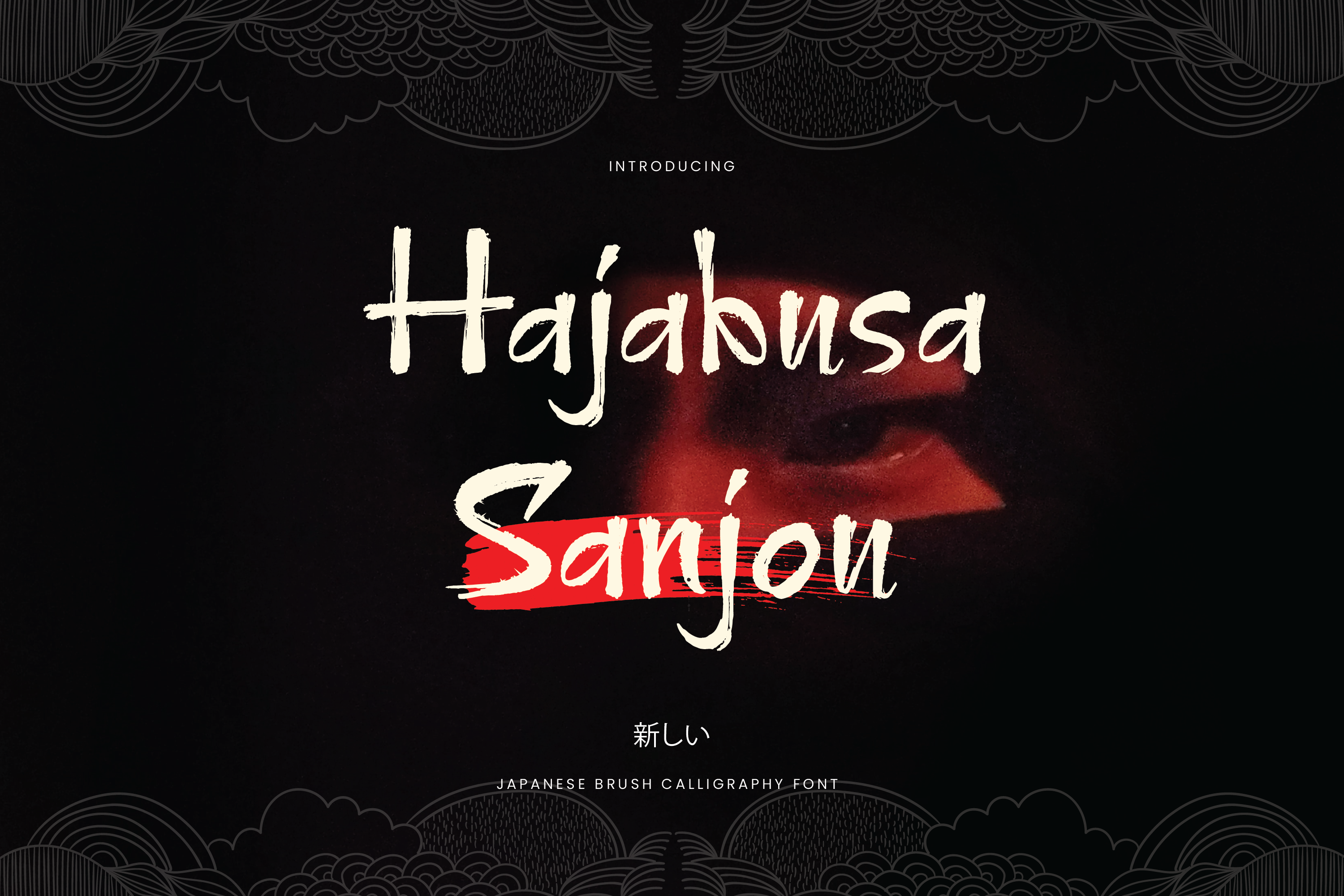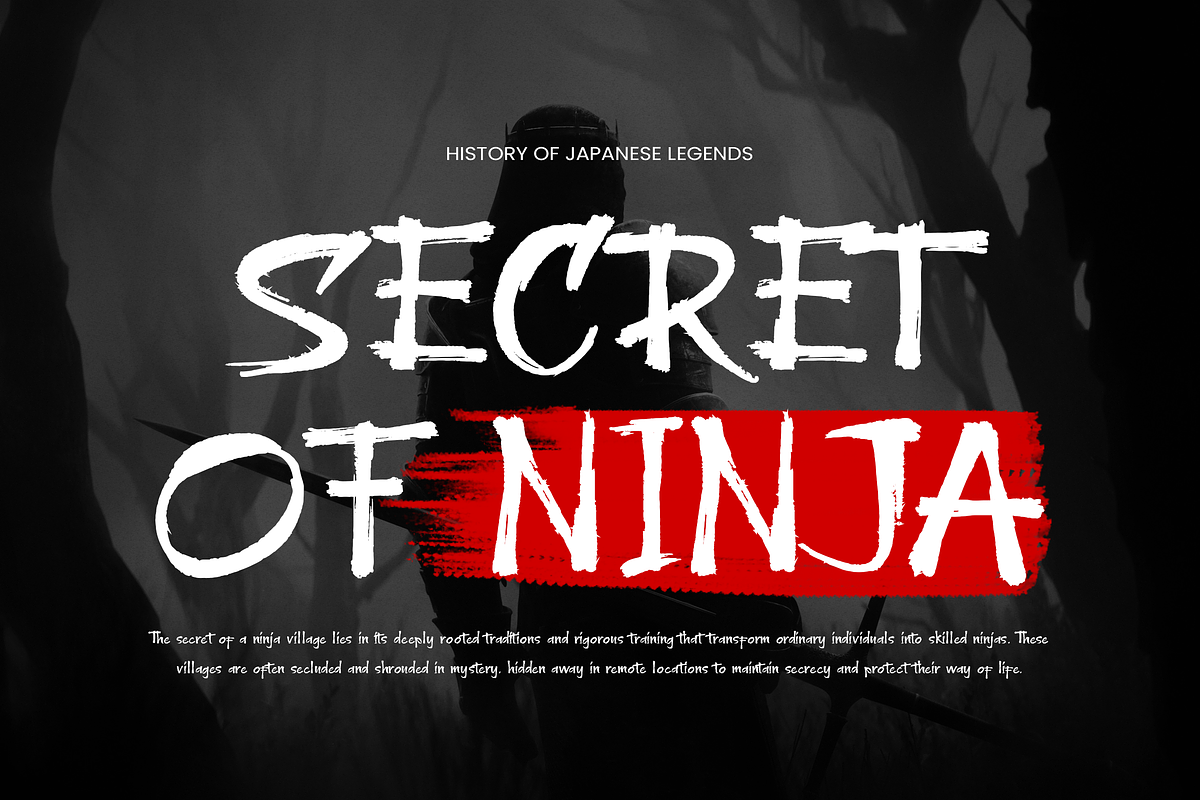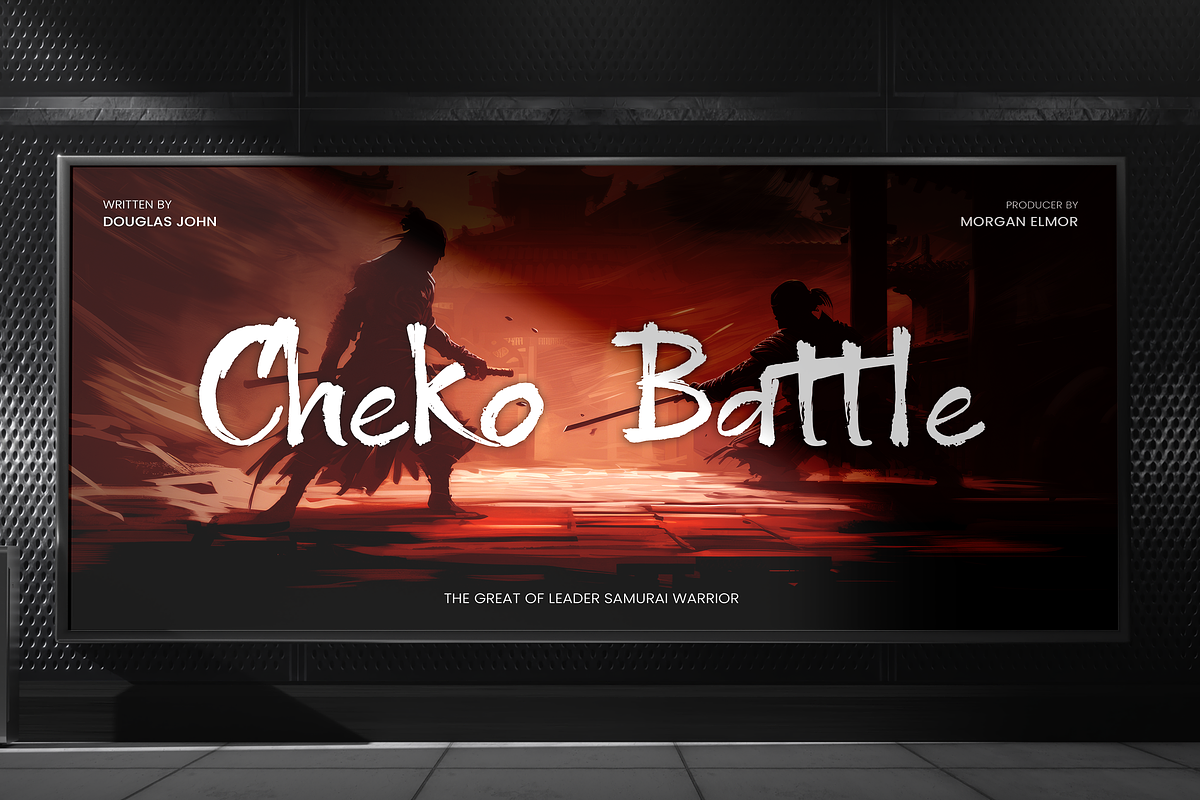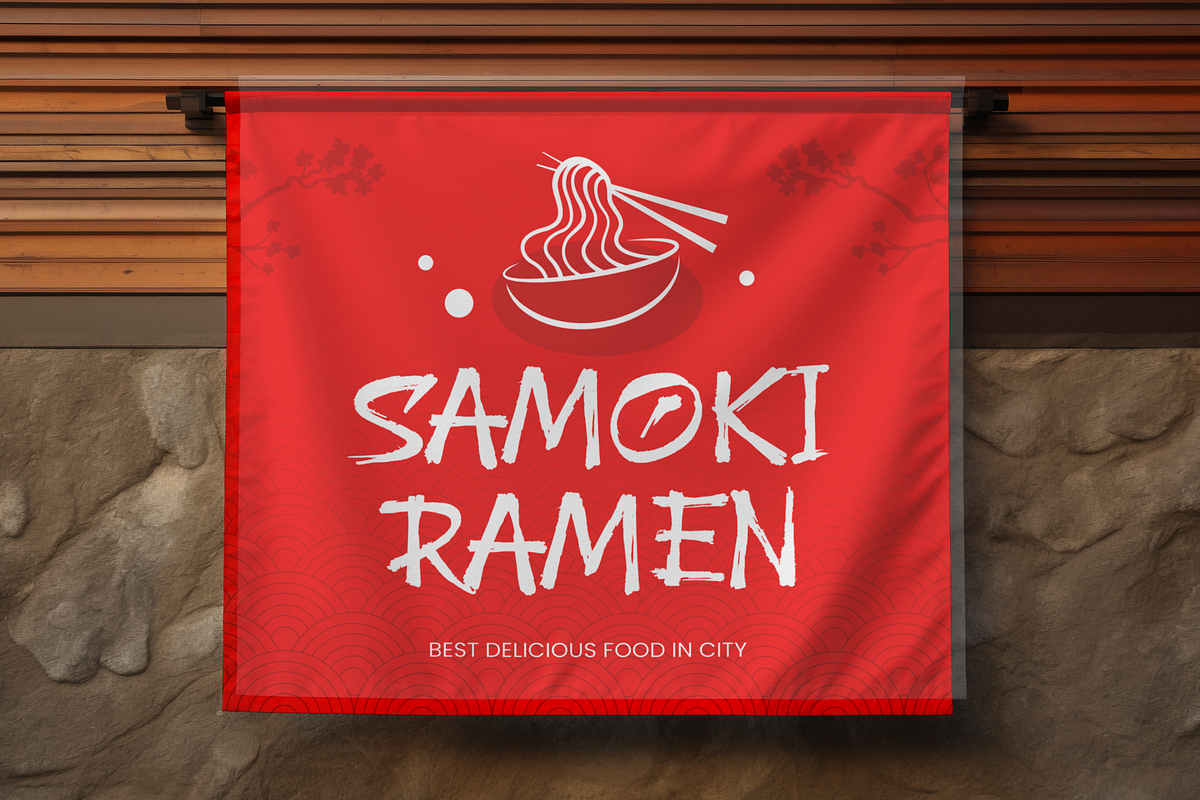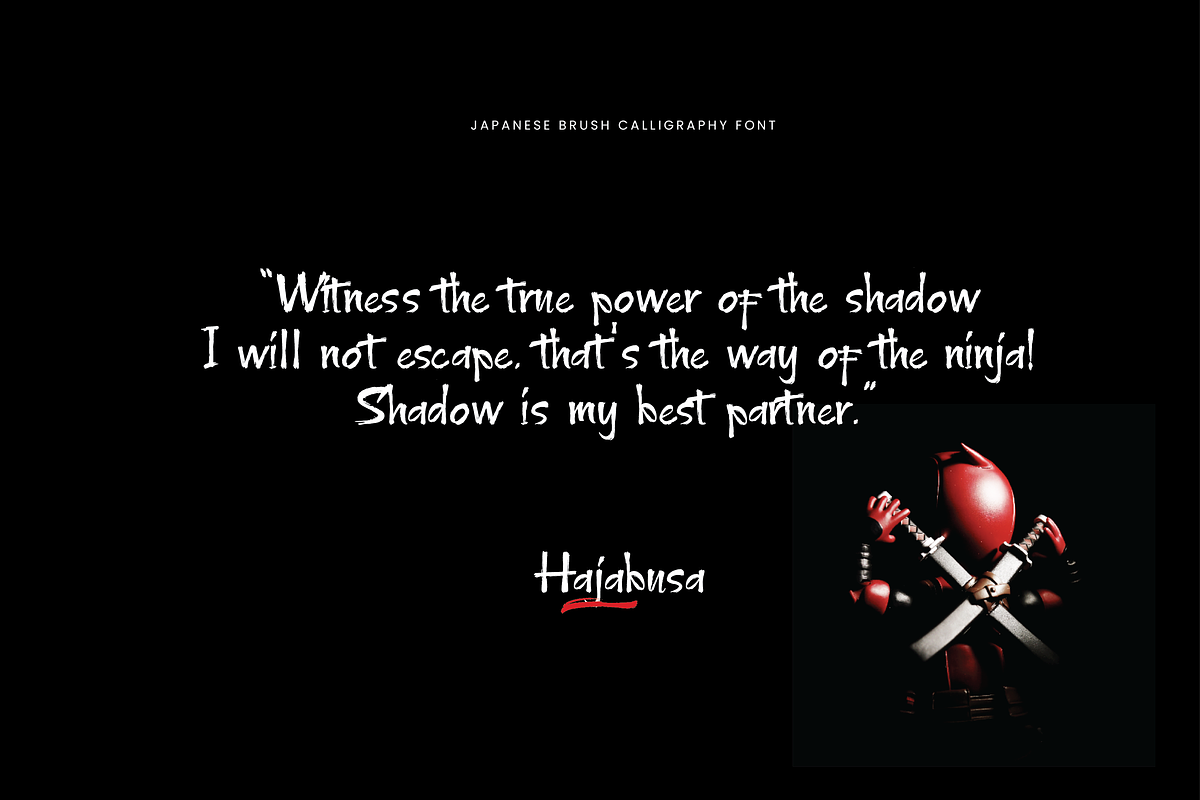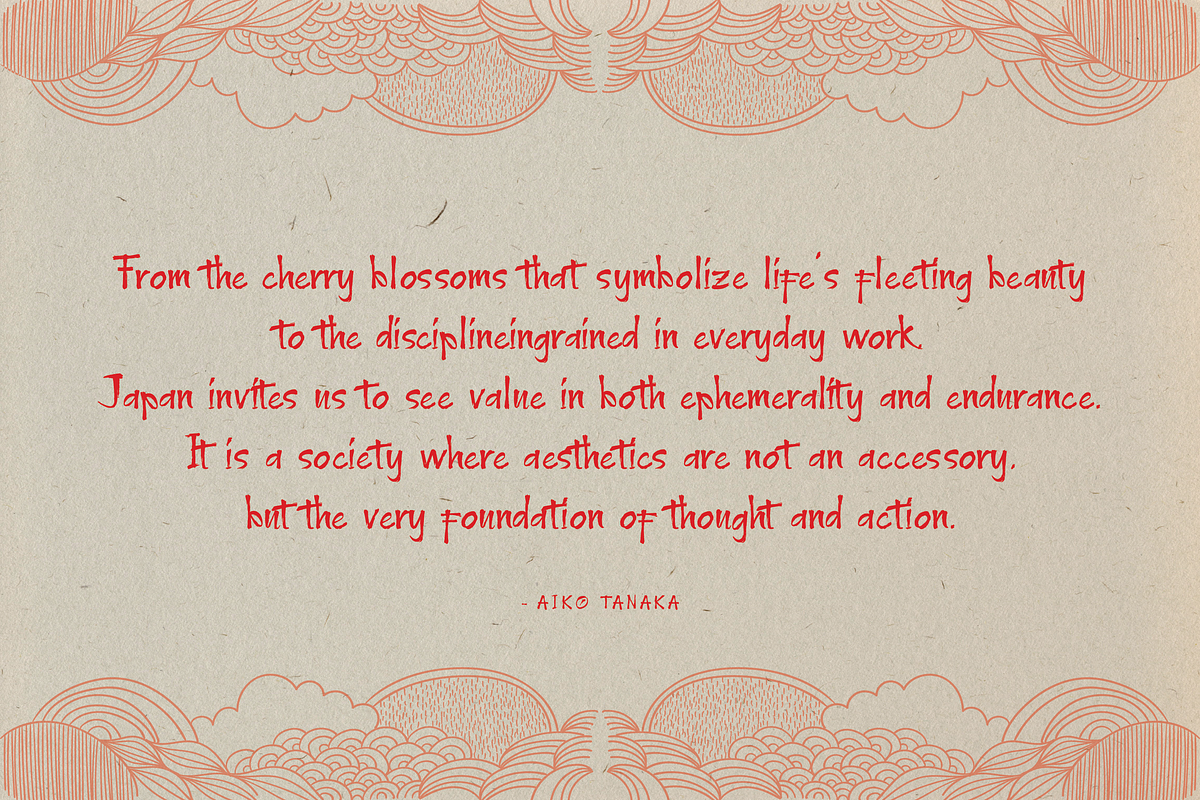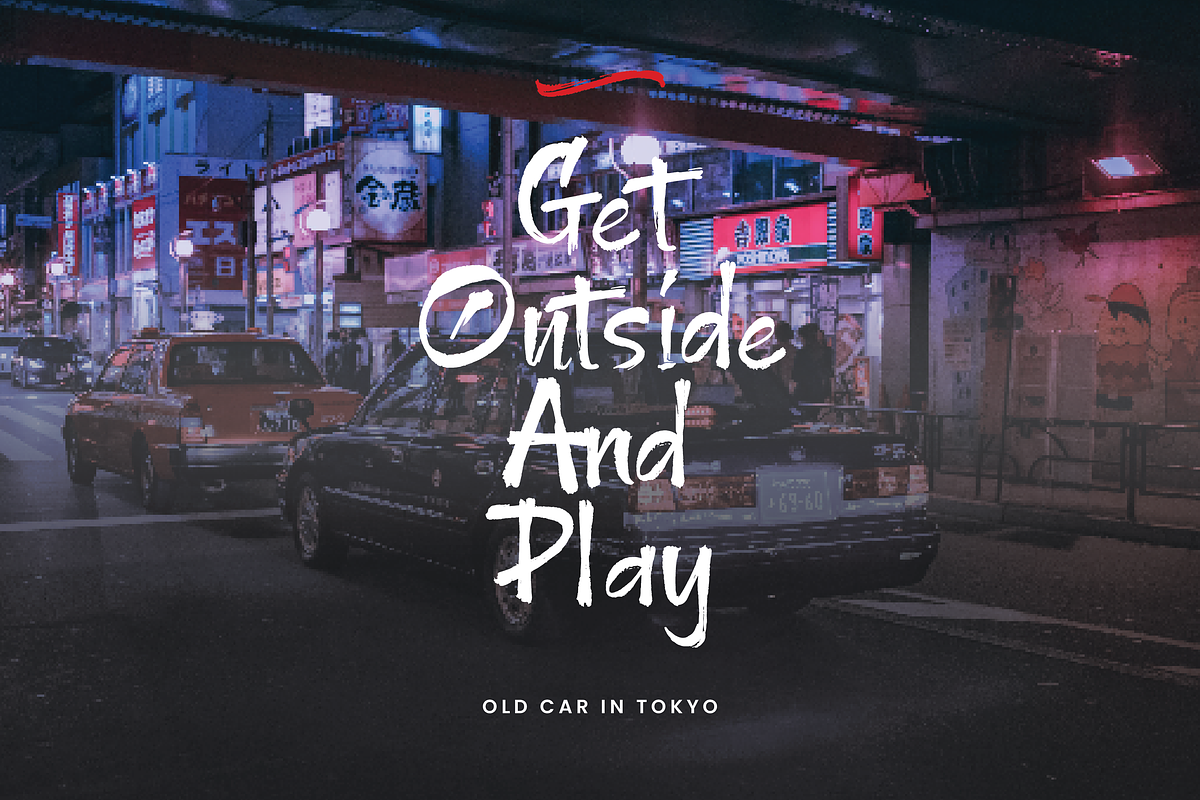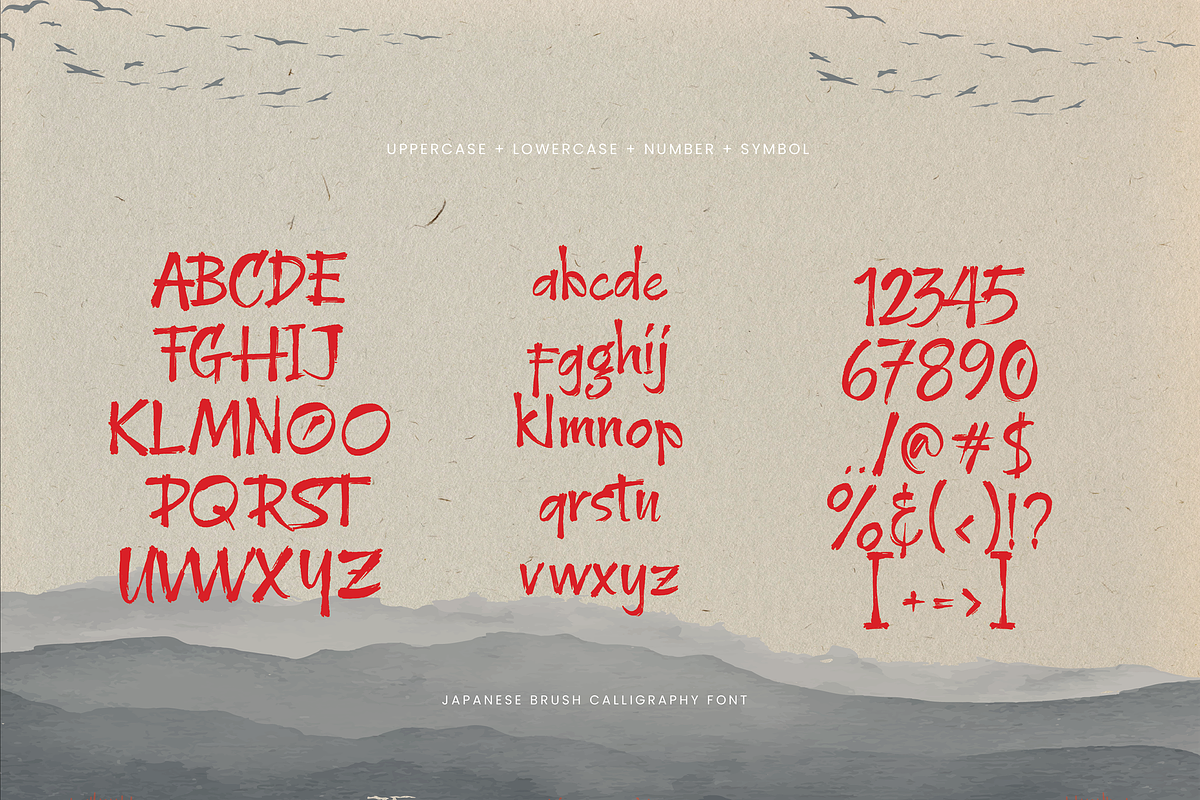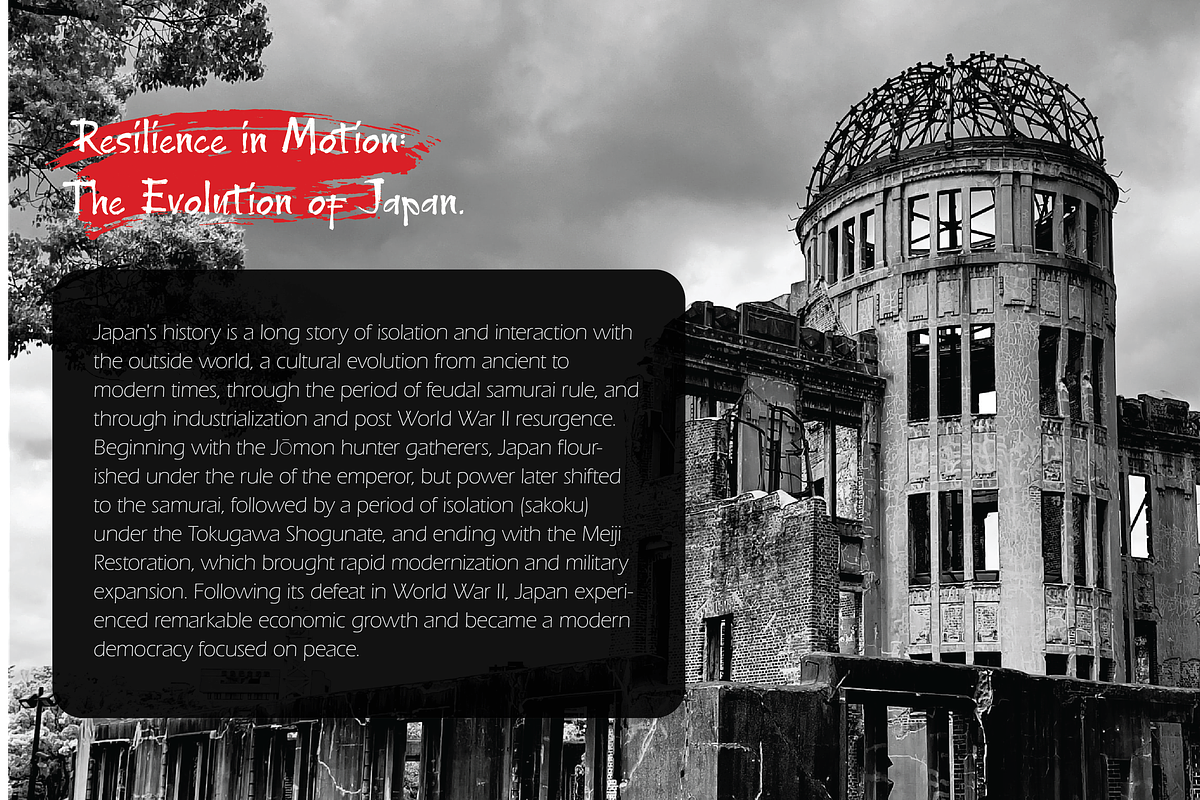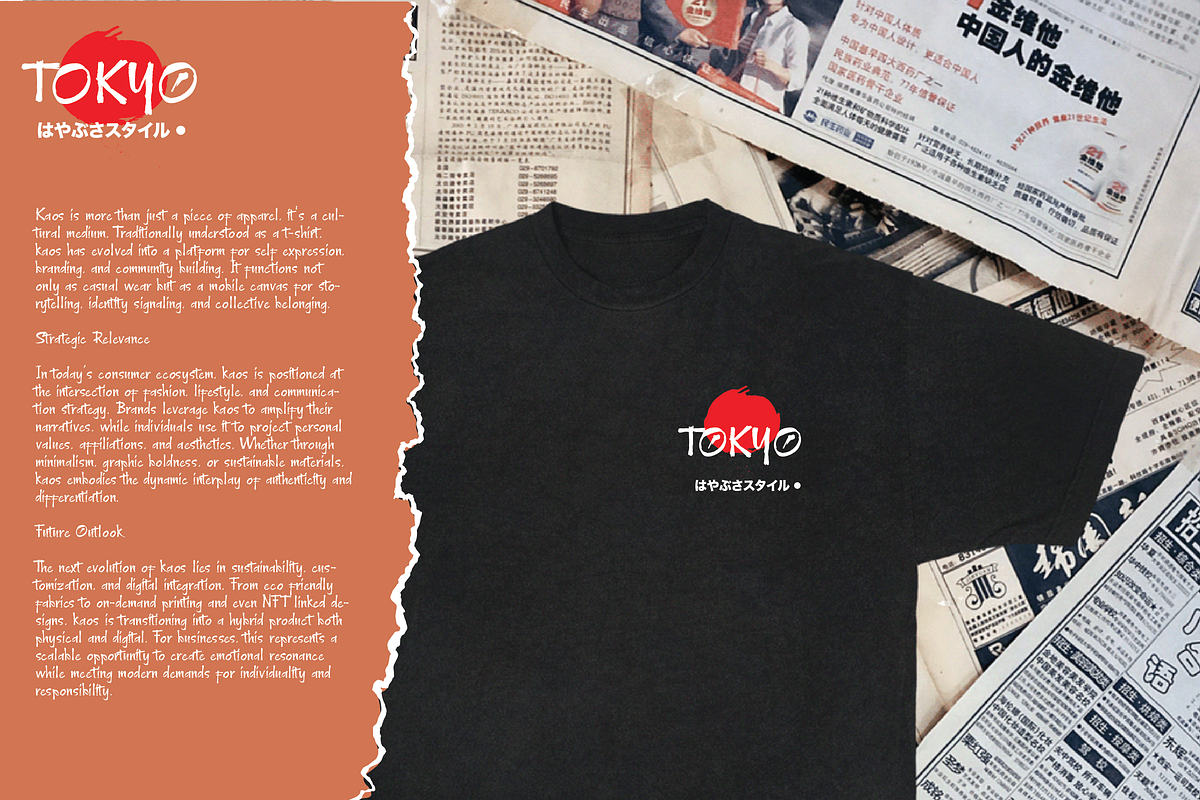
Hajabusa Sanjou - Japanese Typeface
Unleash the spirit of the warrior and the elegance of Japanese calligraphy with Hajabusa Sanjou. This meticulously crafted brush font embodies the raw energy and fluid grace of traditional ink strokes, bringing a powerful and authentic Asian aesthetic to your creative projects.
Each letter is designed with the spontaneity of a real brush. You can see the texture, the varying pressure, and the subtle imperfections that give it a raw, handmade feel.
Hajabusa Sanjou is incredibly versatile. It's the perfect choice for branding projects like ramen restaurants and streetwear apparel, powerful movie titles and game logos, or evocative social media quotes and posters. Whether you're aiming for a historical samurai theme, a modern Tokyo street vibe, or a serene zen aesthetic, Hajabusa Sanjou provides the authentic brushwork to bring your vision to life.
Uppercase and Lowecase Characters.
PUA Encoded Characters.
Numerals and Punctuations.
Alternates and Ligatures.
Multilingual Support.